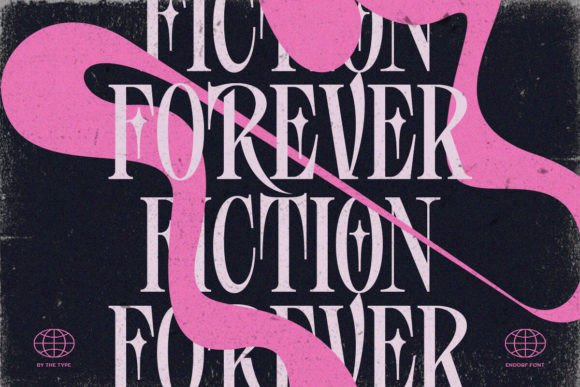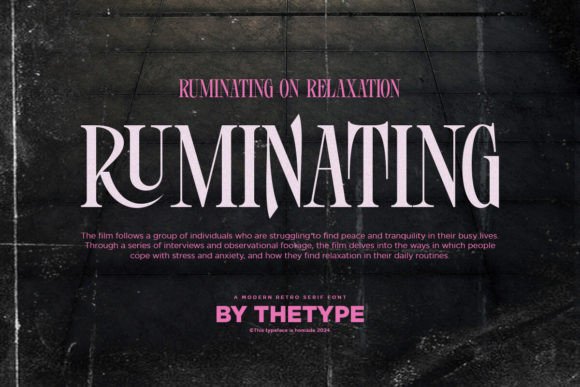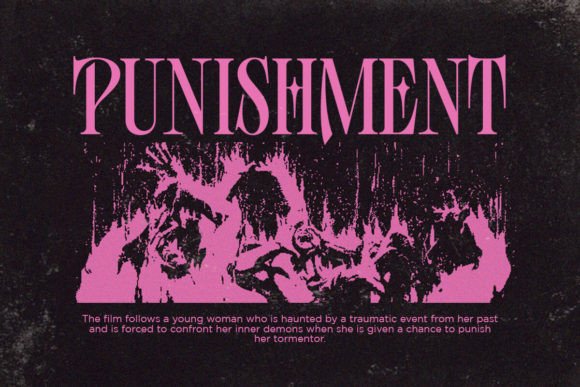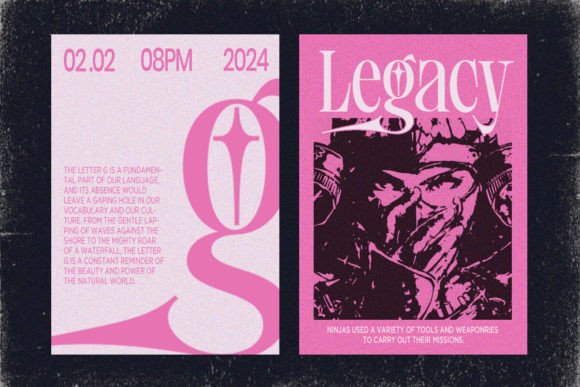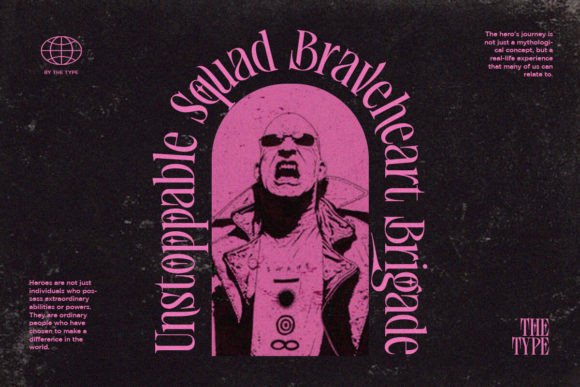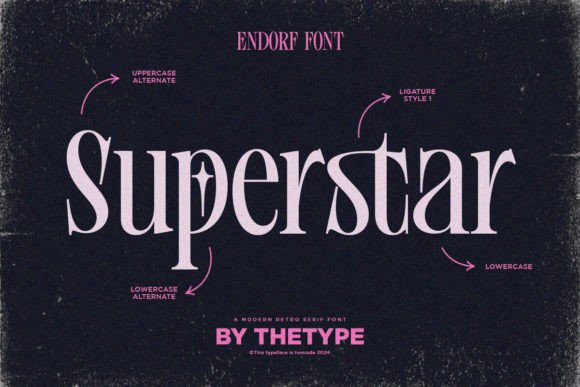
Discover the Timeless Charm of Endorf Font: Elevate Your Designs with Elegance
Are you on the hunt for a font that exudes sophistication, elegance, and a touch of timelessness? Look no further than the Endorf Font, a lovely serif font that is rapidly becoming a favorite among designers and crafters alike. With its unique and beautiful touch, Endorf is the perfect choice for creating eye-catching logos, branding, and quotes that will leave a lasting impression.
The Characteristics of Endorf Font
Endorf Font boasts a classic serif design, characterized by its subtle yet distinctive flair. Every letter has been meticulously crafted to showcase a unique and beautiful touch, setting it apart from more generic fonts. This attention to detail is what makes Endorf so special, allowing your designs to stand out in a crowded digital landscape.
Why Choose Endorf Font?
So, what makes Endorf Font the go-to choice for designers and crafters? Here are just a few compelling reasons:
- Elegance and Sophistication: Endorf Font exudes a sense of refinement and luxury, making it perfect for high-end branding, logos, and designs that demand a touch of sophistication.
- Timeless Appeal: Unlike trendy fonts that quickly go out of style, Endorf Font has a timeless quality that ensures your designs will remain relevant for years to come.
- Versatility: Whether you’re creating a logo, branding materials, or quotes, Endorf Font adapts seamlessly to any design style, making it an incredibly versatile addition to your font library.
- Unique Character: The distinctive flair of Endorf Font ensures that every letter stands out, adding a touch of personality to your designs that will capture the attention of your audience.
Using Endorf Font in Your Designs
Endorf Font is incredibly easy to use and can be applied to a wide range of design projects. Here are a few ideas to get you started:
- Logo Design: Create a lasting impression with a custom logo that showcases the elegance and sophistication of Endorf Font.
- Branding Materials: Use Endorf Font to elevate your branding materials, including business cards, letterheads, and packaging.
- Quotes and Typography: Add a touch of personality to your quotes and typography with Endorf Font, perfect for social media graphics, posters, and more.
Tips for Getting the Most Out of Endorf Font
To truly make the most of Endorf Font, here are a few expert tips:
- Experiment with Colors: Endorf Font looks stunning in a range of colors, so don’t be afraid to experiment and find the perfect hue to match your brand.
- Play with Sizes: The versatility of Endorf Font means it looks great in a range of sizes, from large headings to smaller body text.
- Mix and Match: Combine Endorf Font with other fonts to create a unique and eye-catching design that showcases your creativity.
| Font Name | Endorf Font |
| Author | The_Type |
In conclusion, Endorf Font is a game-changer for designers and crafters looking to elevate their designs with elegance and sophistication. With its timeless appeal, unique character, and versatility, Endorf Font is the perfect addition to any font library. So why wait? Discover the charm of Endorf Font today and take your designs to the next level!
Whether you’re a seasoned designer or just starting out, Endorf Font is sure to inspire your creativity and help you create stunning designs that leave a lasting impression. So go ahead, get creative, and let the beauty of Endorf Font shine through in your work!